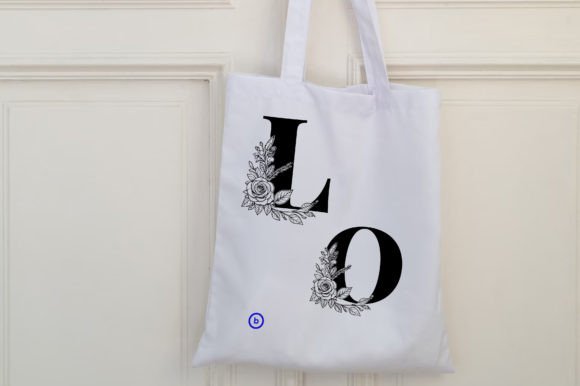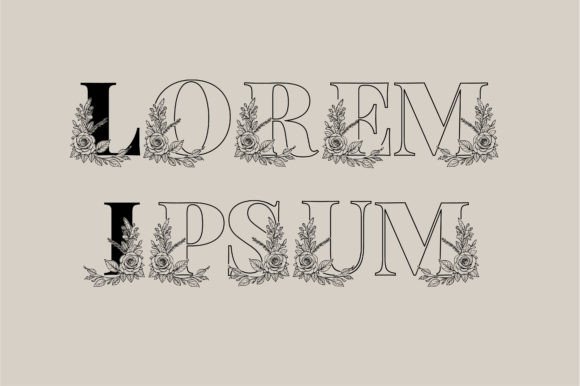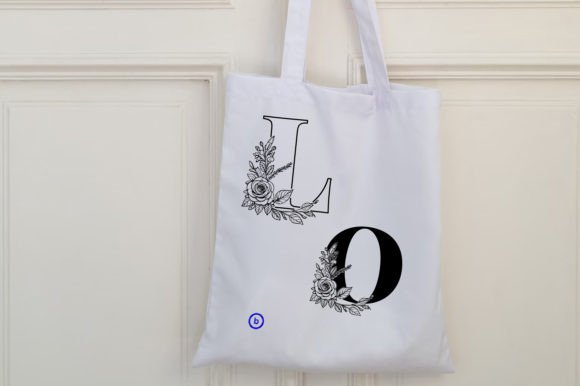
Introduction to Kalia Monogram Font
Remember that moment when you’re brainstorming ideas for your next creative project, and you’re stuck on finding the perfect font to bring your vision to life? You search through countless options, and then, like a ray of sunshine, you stumble upon the Kalia Monogram Font. This exquisite decorative font is the perfect addition to any design resource, elevating your project from good to breathtaking.
The Kalia Monogram Font is more than just a pretty face – it’s a high-quality design element that adds a touch of sophistication and elegance to any creation. With its delicate lines and intricate details, this font is perfect for designers who want to make a statement without overpowering their message. Whether you’re working on a free download or a paid project, the Kalia Monogram Font is a valuable asset that’s sure to impress.
Key Features of Kalia Monogram Font
- High-quality design resource suitable for creative projects, including logos, branding, and typography.
- Unique monogram design with a transparent background, allowing for versatility in design applications.
- Perfect for designers and artists looking for a distinctive and creative element to elevate their designs.
- Can be used in a variety of creative projects, from digital art to print materials, and everything in between.
Honest Review: Kalia Monogram Font
As a designer, I’m always on the lookout for high-quality design resources to elevate my creative projects. Recently, I had the chance to try out the Kalia Monogram Font, and I’m excited to share my honest review with you.
Here are some things that work well: ✨
- Unique and elegant design aesthetic
- Wide range of customization options
- Transparent background for seamless integration
- High-resolution images for crisp and clear display
- No bold or italic versions available
Overall, I’m impressed with the Kalia Monogram Font’s high-quality design and versatility. While it may have some limitations, it’s a great choice for personal projects or small businesses looking to add a touch of elegance to their branding. If you’re looking for a unique and sophisticated font, I’d definitely recommend checking it out – just be sure to review the license agreement carefully.
Getting the Most Out of Kalia Monogram Font
For optimal results, use the Kalia Monogram Font on a transparent background to create a clean and professional look. Experiment with different font sizes and colors to find the perfect combination for your design.
The Kalia Monogram Font is ideal for:
- Personalized gifts and merchandise
- Branding and marketing materials